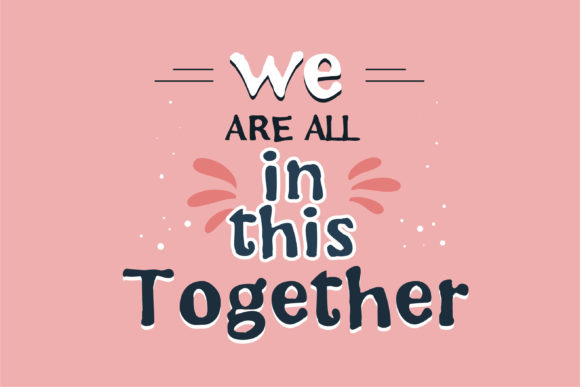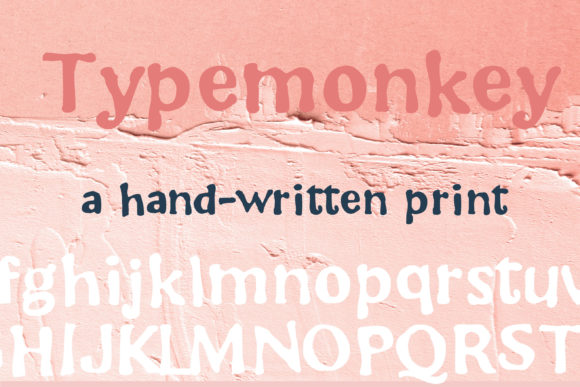
Typemonkey Font
db-ku.com - Script & Handwritten -- Typemonkey is a modern yet whimsical style, this font has the potential to bring each of your creative ideas to the highest level!